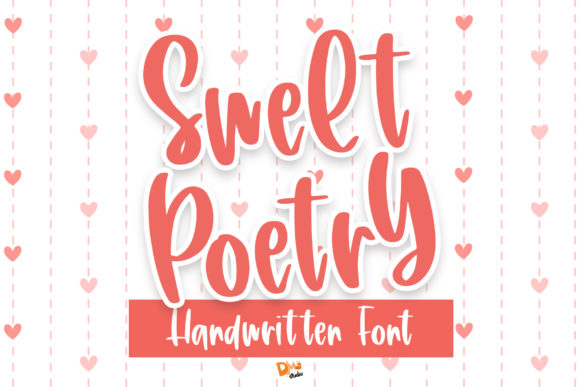
Indulge in the captivating charm of Sweet Poetry Font, a meticulously crafted script that exudes warmth and playfulness. Its flowing lines and playful curves evoke a sense of spontaneity and creativity, making it the perfect choice for personalizing your designs, captivating your audience, and leaving a lasting impression.
Step into a world of endless possibilities with Sweet Poetry. Whether you're a seasoned designer or a budding entrepreneur, this font will elevate your creations to new heights. Perfect for branding, logos, invitations, social media posts, and more, Sweet Poetry effortlessly adds a touch of whimsy and charm to any project.
Let your imagination soar as you explore the boundless versatility of Sweet Poetry. Its friendly and approachable nature makes it ideal for invitations and personal correspondence, while its professional edge verleiht a touch of sophistication to business documents and marketing materials.
Unlock the power of expression with Sweet Poetry Font. Embrace its unique character and let your words dance across the page with effortless grace. Enhance your designs, connect with your audience, and create a lasting legacy with this remarkable typeface. Download Sweet Poetry today and embark on a creative journey that will leave you enchanted.